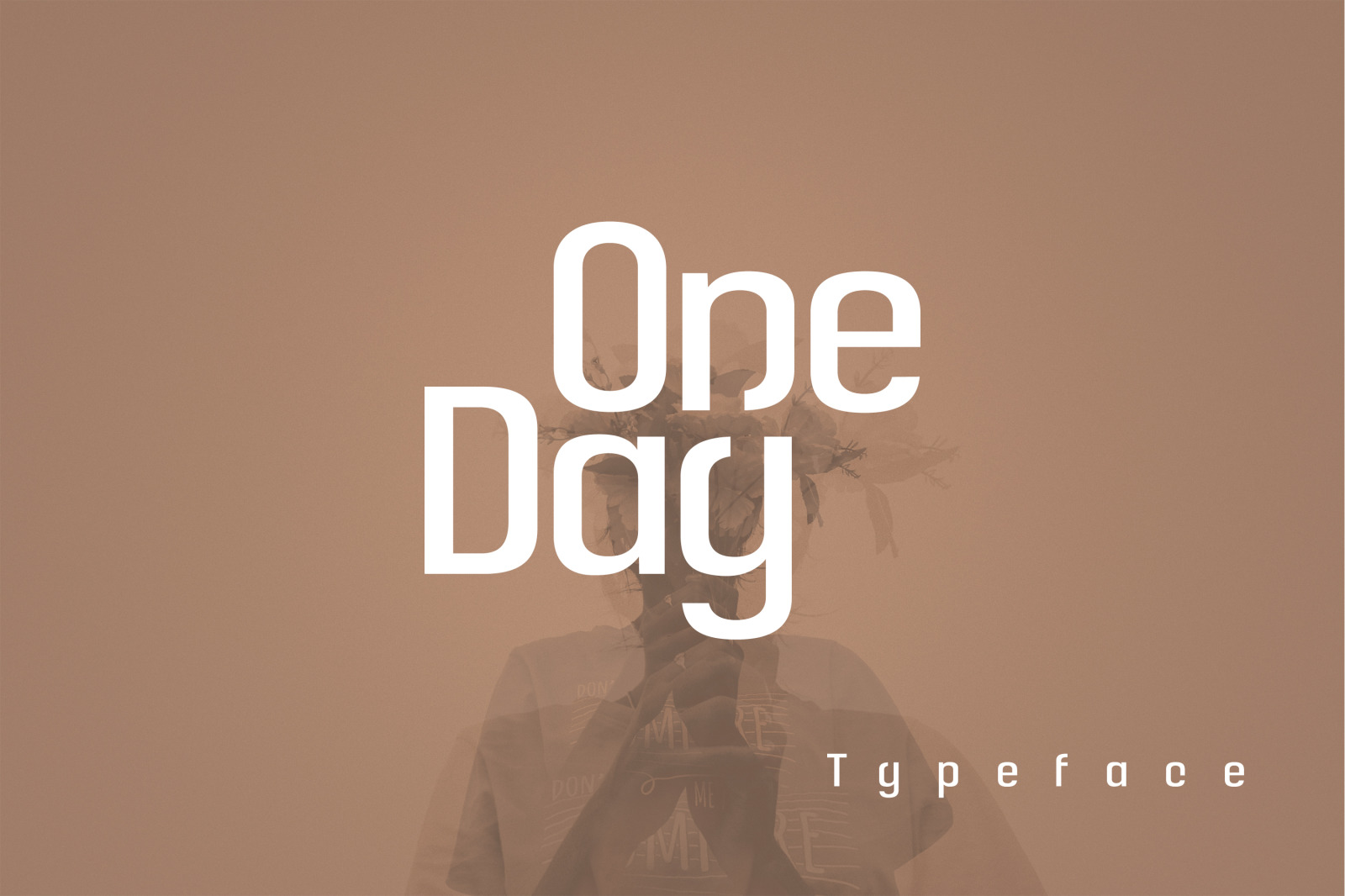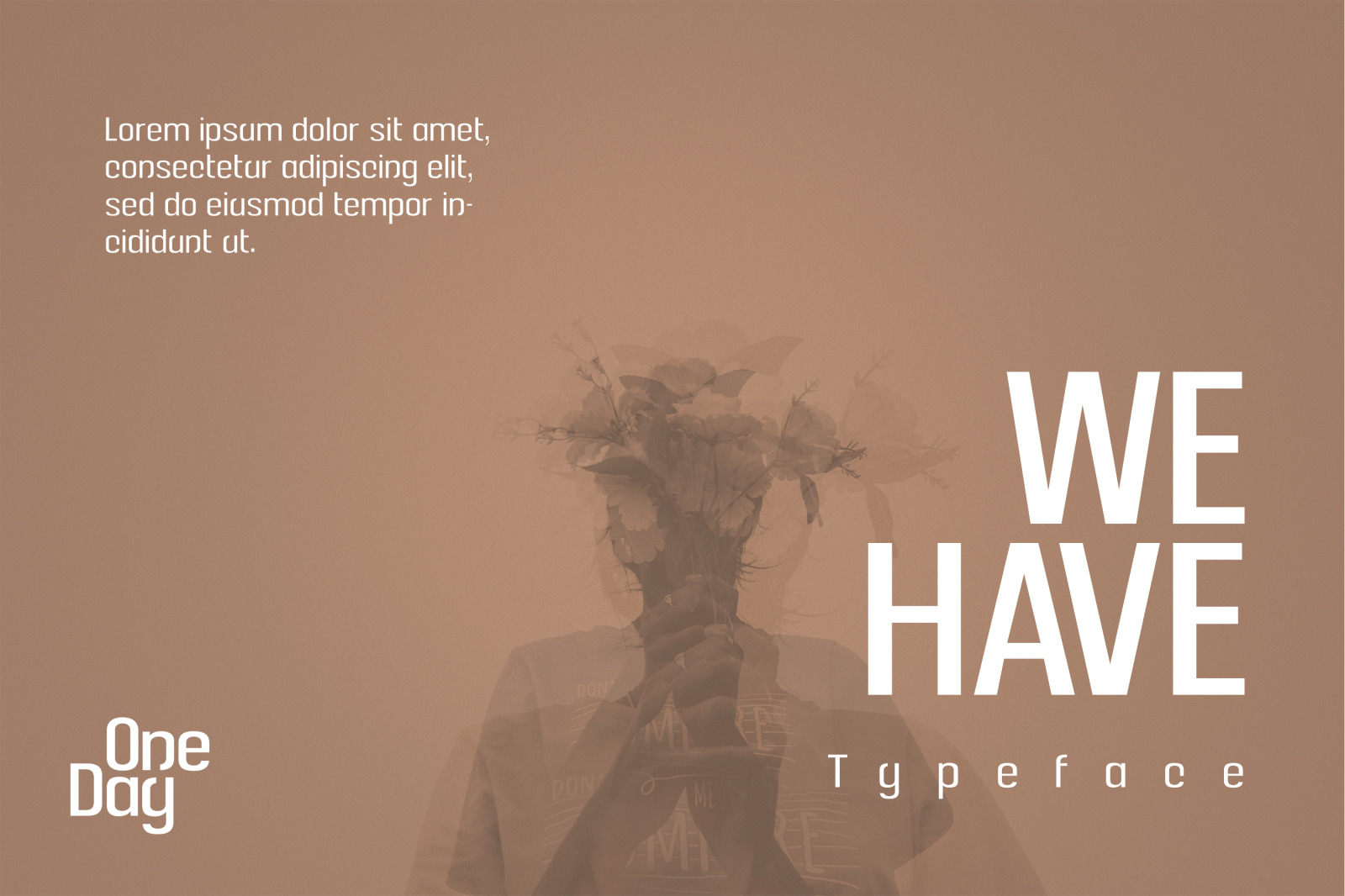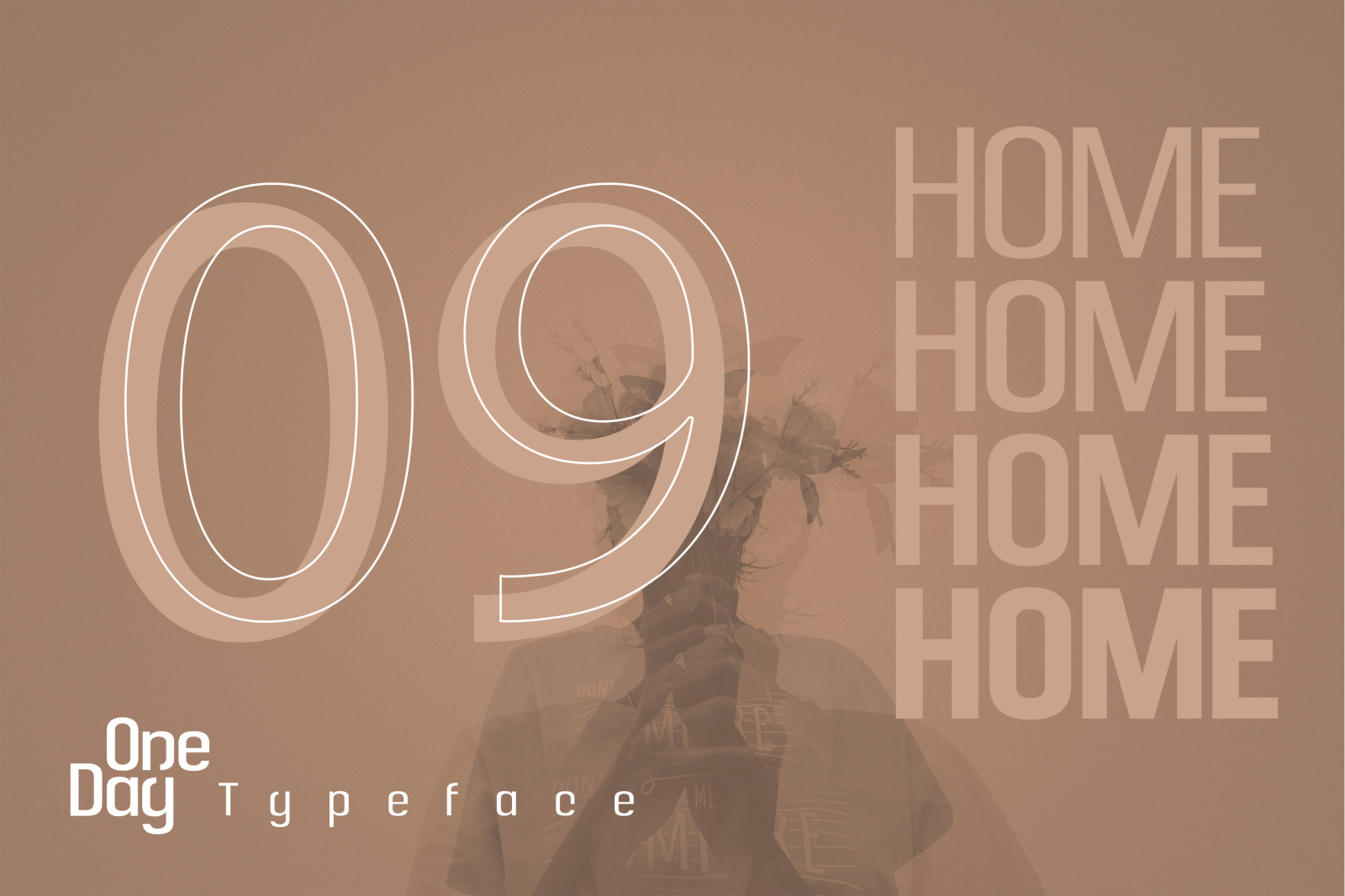
One Day Font
One Day is a cool and modern display font family with Four weights. This typeface is based on the modern concept suitable for branding.
The weights comes from Regular to Bold will be perfect for logo, packaging, greeting cards, presentations, headlines, lettering, posters, branding, quotes, titles, magazines headings, web layouts, art quote, typography, advertising, invitations, packaging design, books, book title, and nearly any creative design. Whatever the topic, this font will be a wonderful asset to your font library, as it has the potential to enhance any creation.